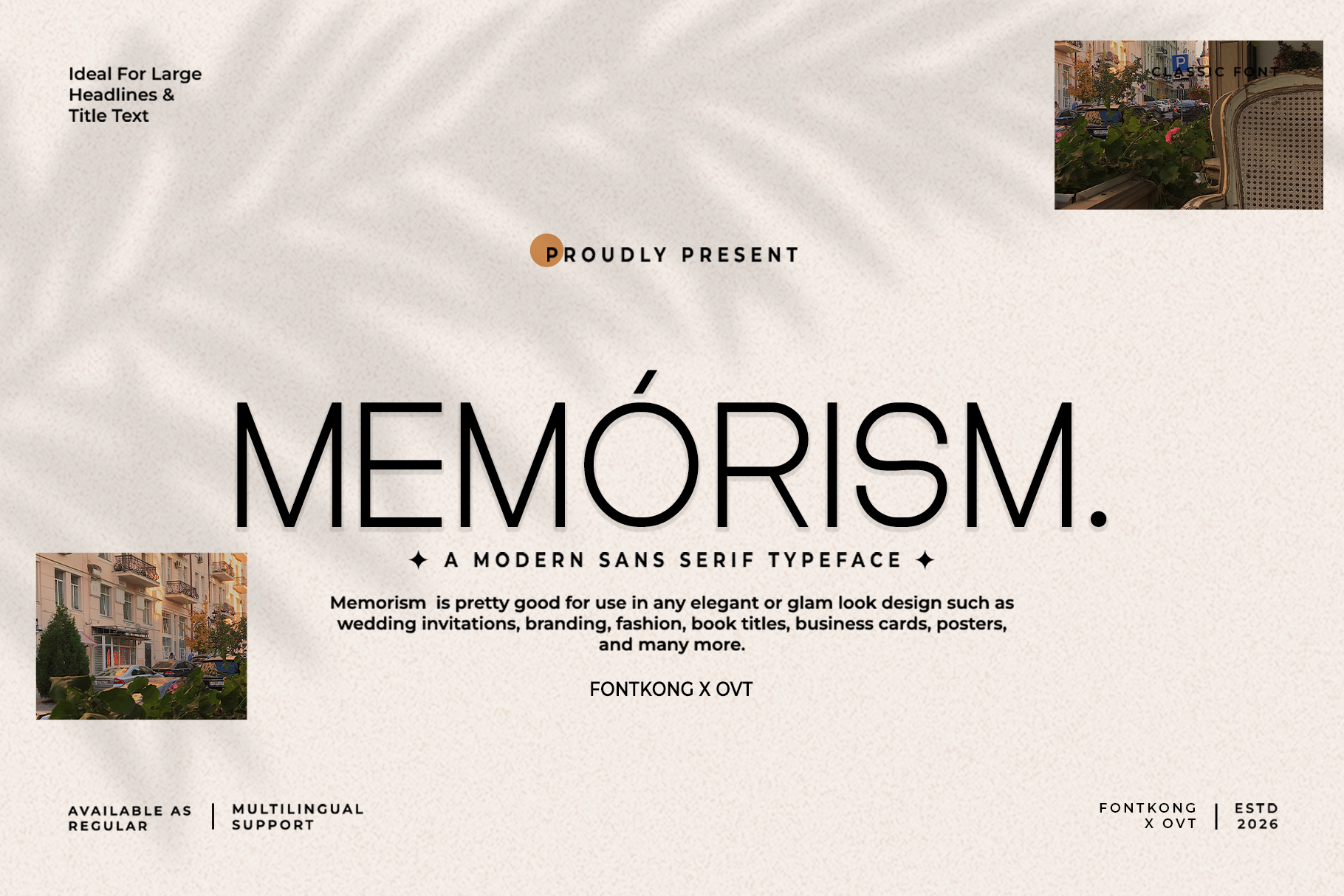
Memorism-Modern Sans Serif Typeface
Memorism - Modern Sans Serif Typeface
Introducing "Memorism," a modern sans serif typeface that combines timeless simplicity with modern versatility. Perfect for graphic designers, typographers, and creatives seeking a clean and adaptable typeface, Memorism offers a refined and contemporary design that enhances any project with its minimalist charm.
Ideal for branding, editorial layouts, websites, logos, and packaging, Memorism’s streamlined characters provide a professional and sophisticated aesthetic. Each letter is meticulously crafted to ensure clarity and visual appeal, making your designs both elegant and impactful.
The "Memorism" font includes a complete set of uppercase and lowercase letters, numbers, punctuation marks, and special characters. This comprehensive set ensures seamless integration into various design projects, from polished branding to sleek editorial content.
Elevate your designs with Memorism, the modern sans serif typeface that combines timeless simplicity with modern versatility.